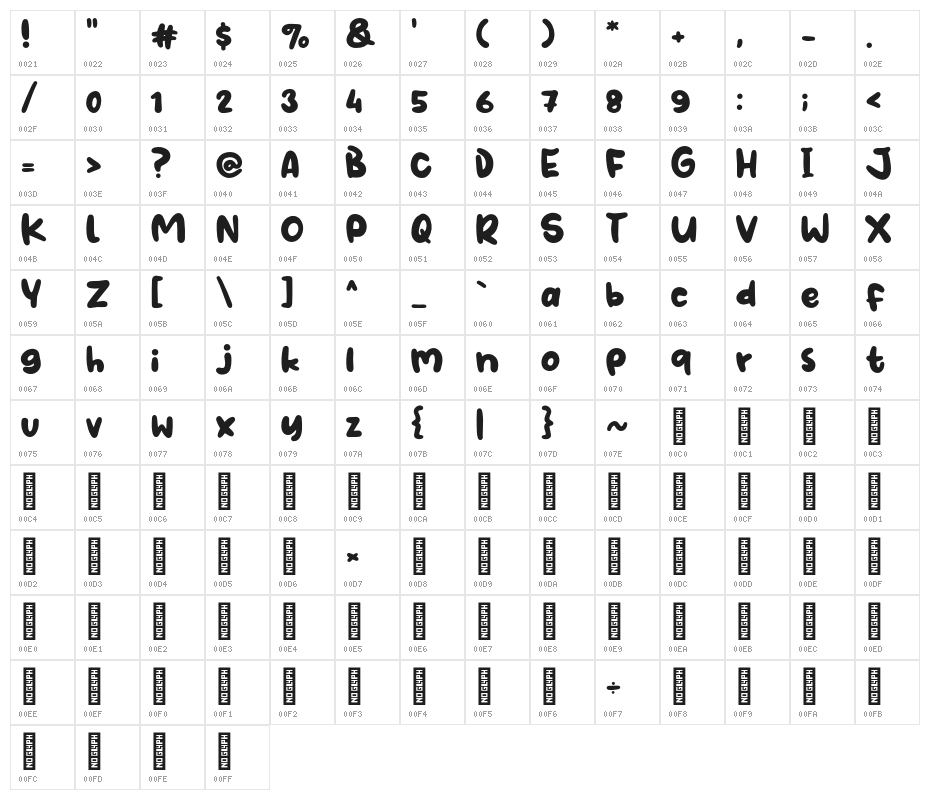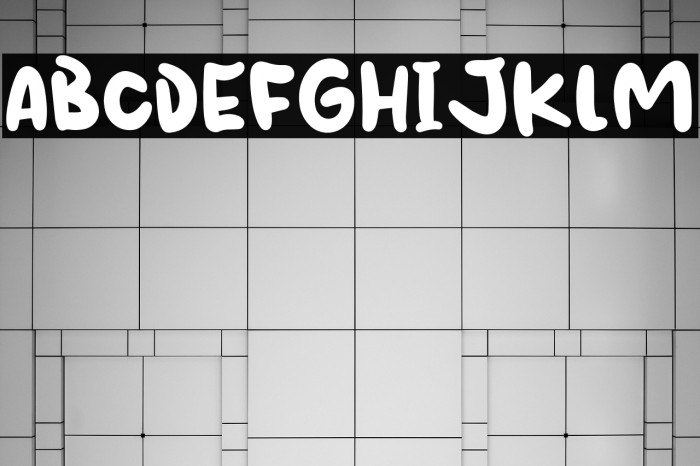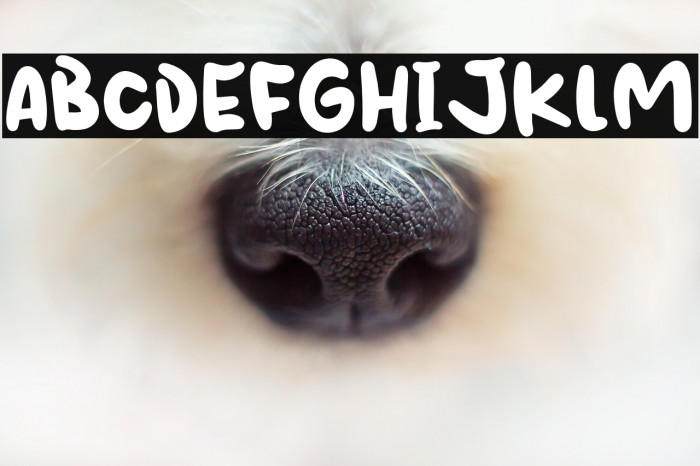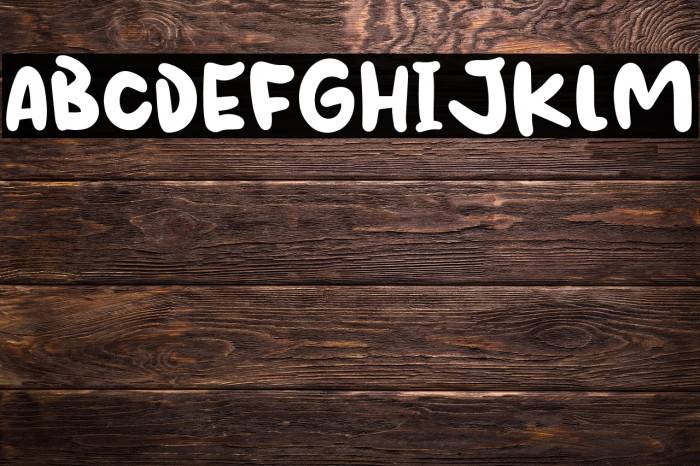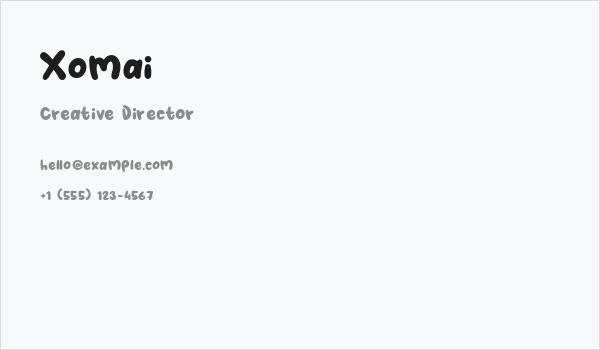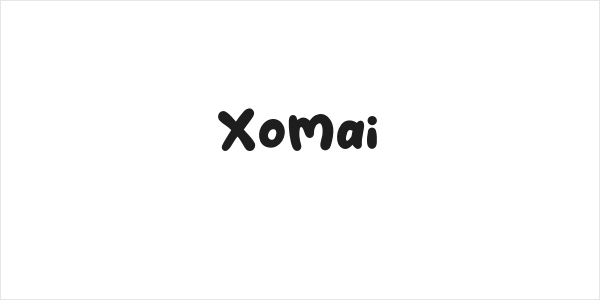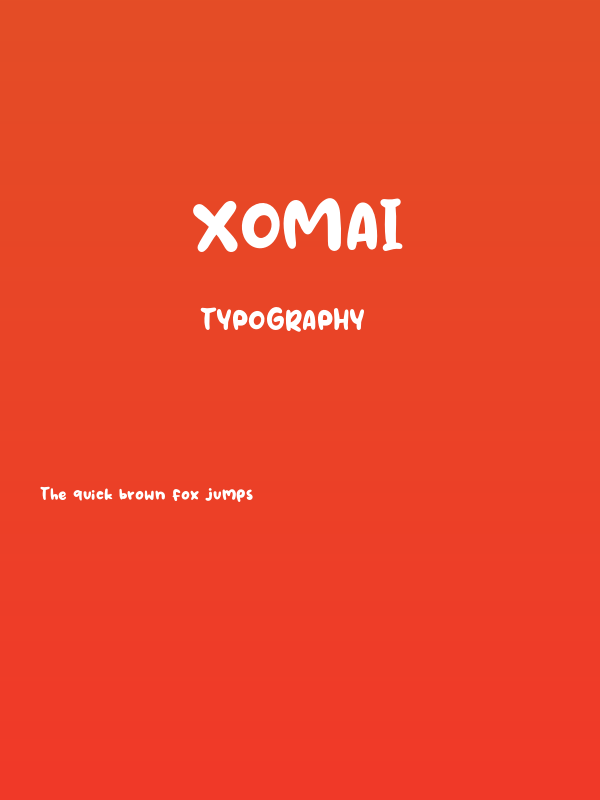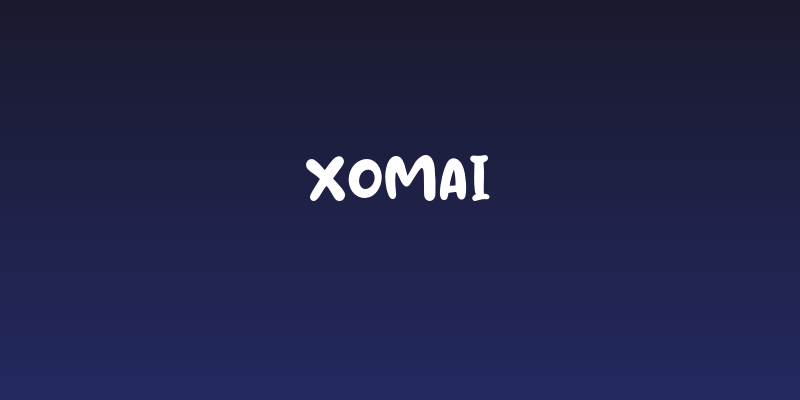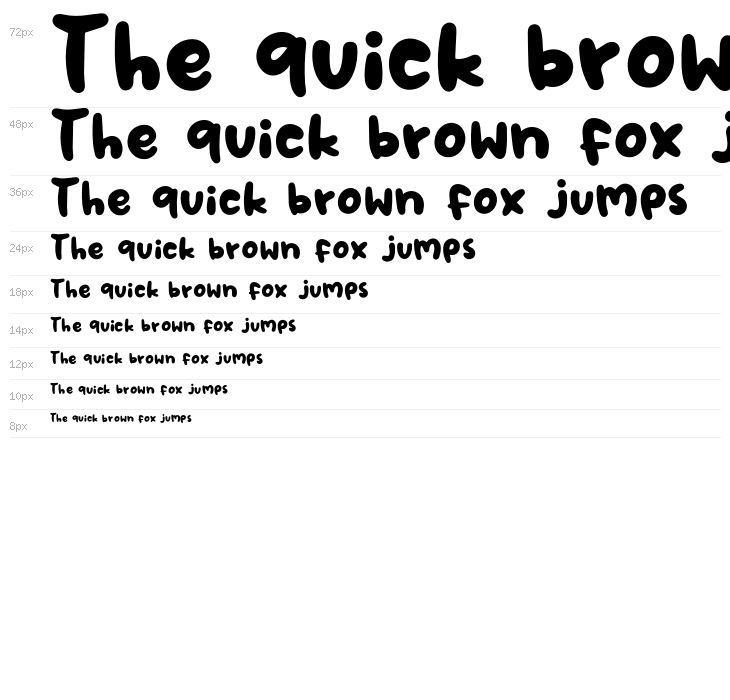
Xomai Font
Xomai Description
This playful and bold font features rounded, thick strokes that give it a friendly and approachable appearance. The characters are slightly irregular, adding a hand-drawn feel that enhances its charm. The uppercase and lowercase letters maintain a consistent style, with a whimsical touch that is evident in the exaggerated curves and loops. The numbers and special characters follow the same design principles, ensuring a cohesive look across all elements. This font's unique style makes it suitable for projects that require a fun and informal tone.
| Proposed Projects | Ideal for children's books, playful branding, greeting cards, and informal event invitations. |